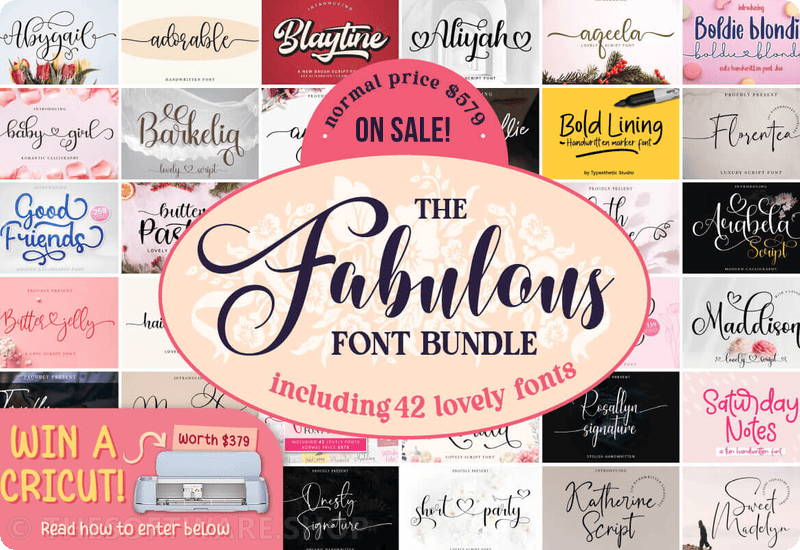
As every designer and creative enthusiast knows, fonts carry much more than just words. Fonts convey mood, style, and set the tone for any design project. So, if you’re on the lookout for some fresh and exciting ways to spice up your creative work, look no further than the Fabulous Font Bundle by Typesthetic Studio!
In today’s competitive market, standing out is a must. The Fabulous Font Bundle, encompassing 42 unique fonts ranging from playful to luxurious and romantic, can just be the tool you need. Ideal for logos, branding, weddings, posters, cards, clothing, and more, giving your designs their distinct personality.
The premium fonts included in this bundle:
- Maddison Script & Handwritten Font
- Hailey Joseph Script & Handwritten Font
- Adorable Script & Handwritten Font
- Short Party Script & Handwritten Font
- Good Friends Fontes Script Fonte
- Sweet Madelyn Script & Handwritten Font
- Magnolia Script & Handwritten Font
- Butter Jelly Fuentes Caligráficas Fuente
- Trully Signature Fuentes Caligráficas Fuente
- Florentea Script & Handwritten Font
- Boldie Blondie Polices Manuscrites Police
- Faith Grace Script & Handwritten Font
- Curly Millie Fuentes Caligráficas Fuente
- Angelina Fontes Script Font
- Mandalica Script & Handwritten Font
- Madina Graciela Script & Handwritten Font
- Saturday Notes Script & Handwritten Font
- Abygail Script & Handwritten Font
- Rosallyn Signature Script & Handwritten Font
- Sometimes Skript-Schriftarten Schriftart
- Serinah Script & Handwritten Font
- Melissa Script & Handwritten Font
- Fabulous Script & Handwritten Font
- Barkelia Script & Handwritten Font
- Arabela Script Polices Manuscrites Police
- Bold Lining Script & Handwritten Font
- Onesty Signature Polices Manuscrites Police
- Melissa Aisha Script & Handwritten Font
- Aliyah Script & Handwritten Font
- Butter Pastry Font Corsivi Font
- Aqeela Script & Handwritten Font
- Beautiful Caroline Polices Manuscrites Police
- Hello Kamilla Script & Handwritten Font
- Blaytine Script & Handwritten Font
- My Favorite Polices Manuscrites Police
- Soulmates Script & Handwritten Font
- Baby Girl Script & Handwritten Font
- Oliver Sophie Polices Manuscrites Police
- Katherine Script Script & Handwritten Font
- Shmoopie Script & Handwritten Font
- Maldives Script & Handwritten Font
- Julietta Polices Manuscrites Police
Variety is the Spice of Design
The Fabulous Font Bundle is carefully curated to reflect diversity and caters to virtually any design requirement. From the stunning Maddison Script & Handwritten Font to the whimsical Good Friends Fontes Script Fonte to the refined and luxurious Magnolia Script & Handwritten Font, be prepared to witness your projects come alive!